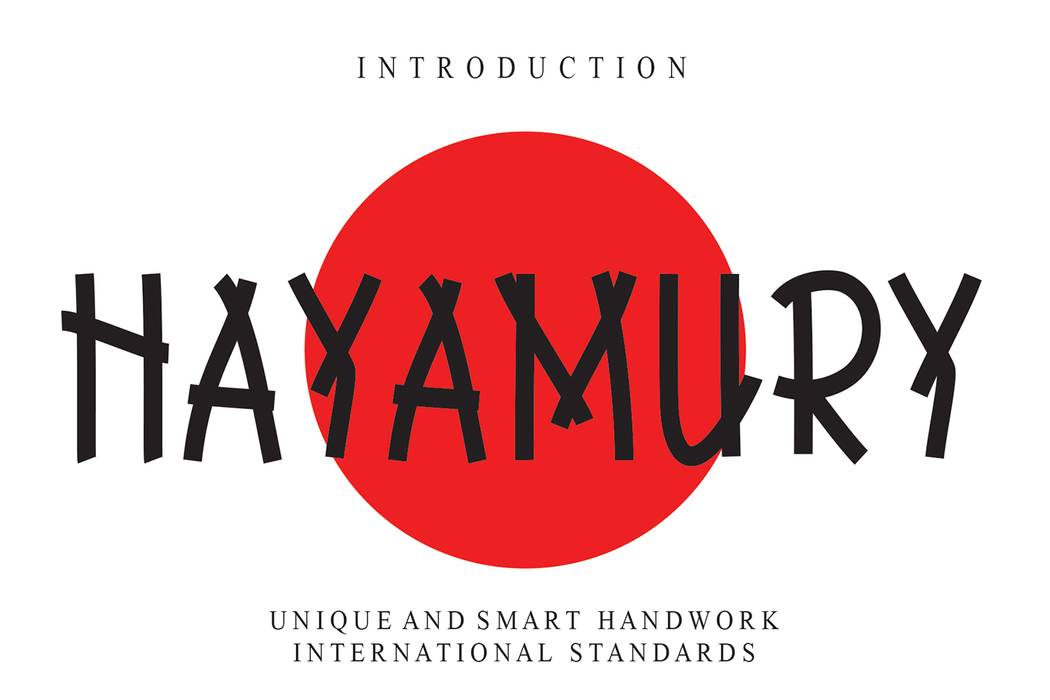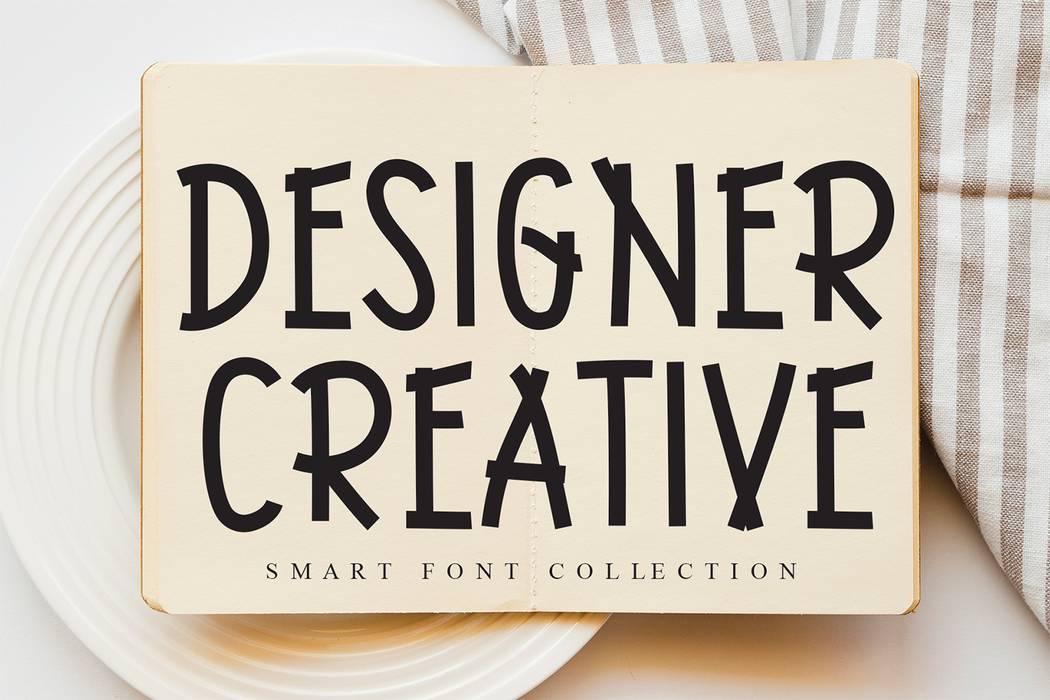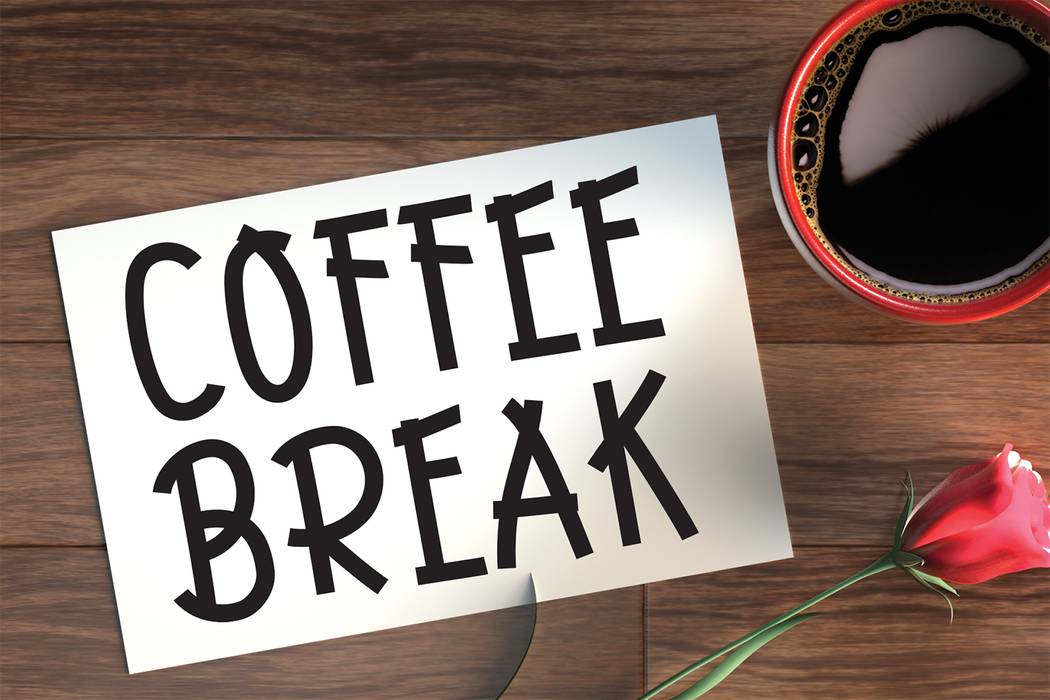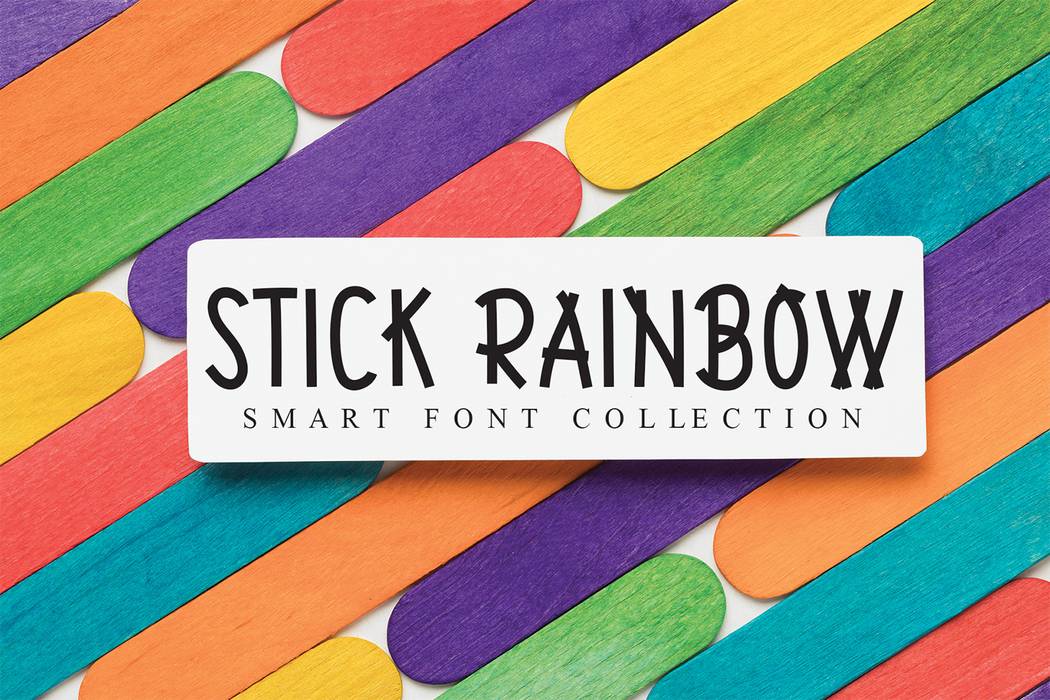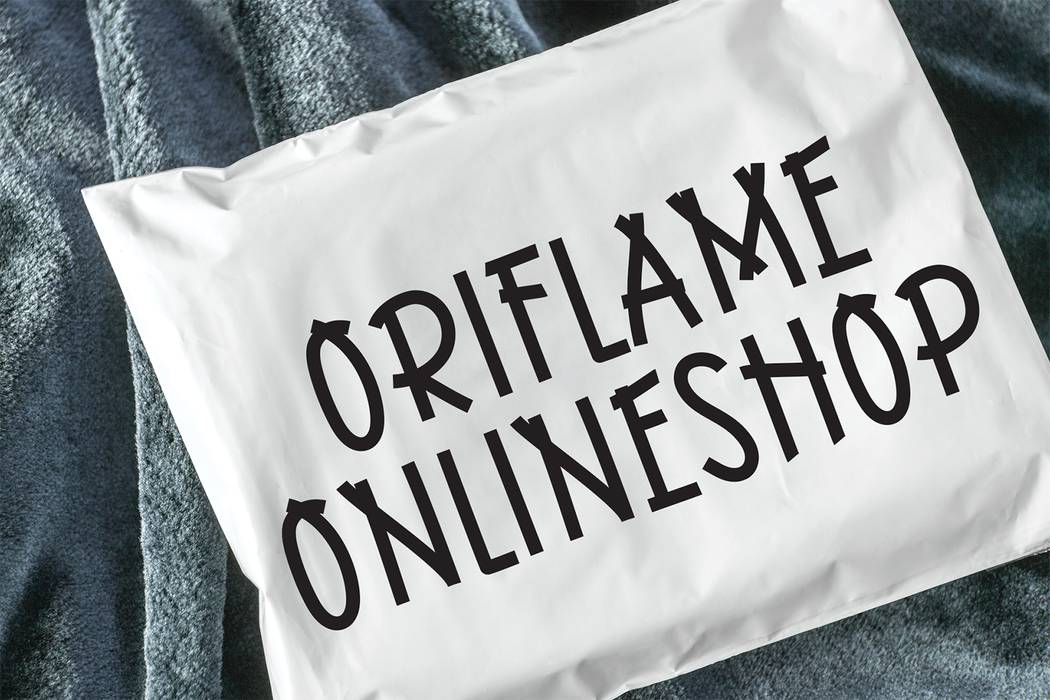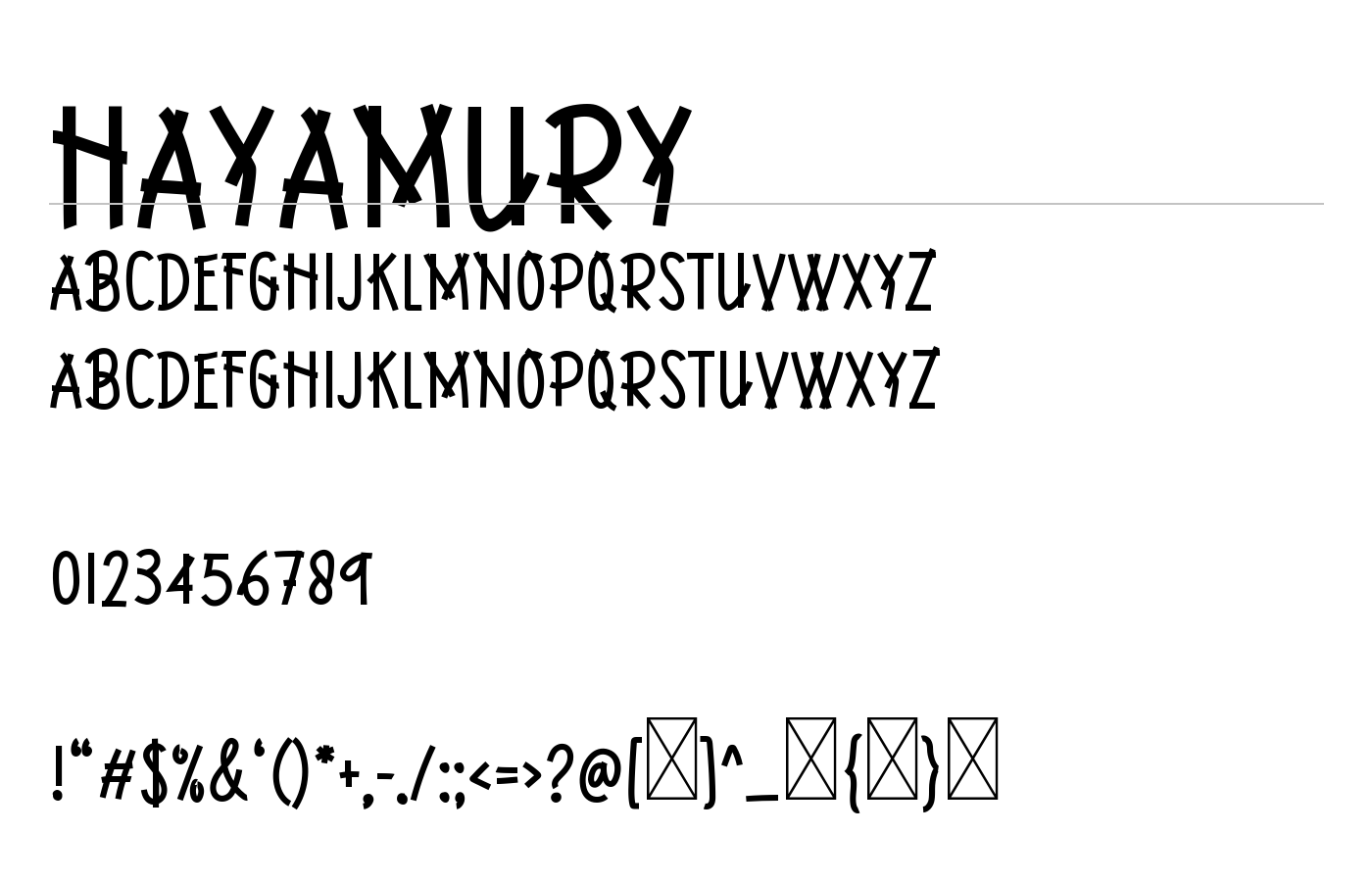
Hayamury is a quirky, narrow sans serif font with an irregular, playful character that gives it a hand-drawn, whimsical feel. Its tall, condensed letterforms and uneven strokes create a unique, dynamic appearance, making it ideal for projects that want to convey creativity and fun, such as playful branding, posters, or eye-catching headlines. This font works well in contexts where a distinctive, informal style is desired to grab attention and express personality.
Hayamury Font
About Hayamury Font